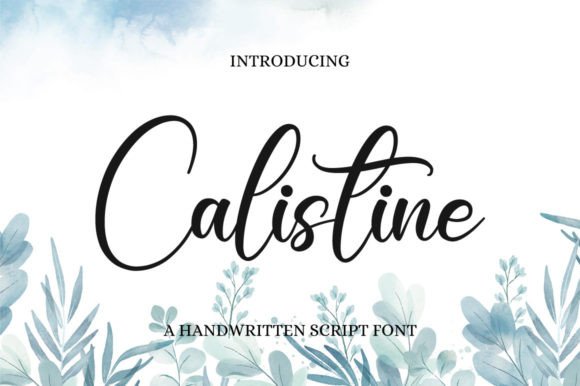
Introducing Calistine Font - A Handcrafted Journey into Timeless Beauty
In a world saturated with digital monotony, let your designs dance to the rhythm of authenticity with Calistine Font. This captivating script font, meticulously crafted by Nirmala Creative, is an ode to the enduring charm of handwritten artistry. Calistine's elegant curves and graceful strokes evoke a sense of nostalgia, inviting you to infuse your creative endeavors with a touch of timeless allure.
Unleash the boundless possibilities of Calistine Font and step into a realm where creativity flourishes amidst the harmonious fusion of past and present. Whether you're a seasoned designer seeking to elevate your projects or a budding enthusiast yearning for a font that speaks to your soul, Calistine Font is your perfect companion. Let its enchanting script weave its magic into your designs, transforming ordinary words into captivating expressions of art.
With Calistine Font, you'll embark on a creative odyssey that transcends the boundaries of the ordinary. Its intricate details and flowing lines lend an air of sophistication to logos, branding, quotes, and more, leaving an indelible mark on the minds of your audience. Let your designs resonate with the authenticity of handwritten artistry, capturing the essence of timeless elegance that never fades.